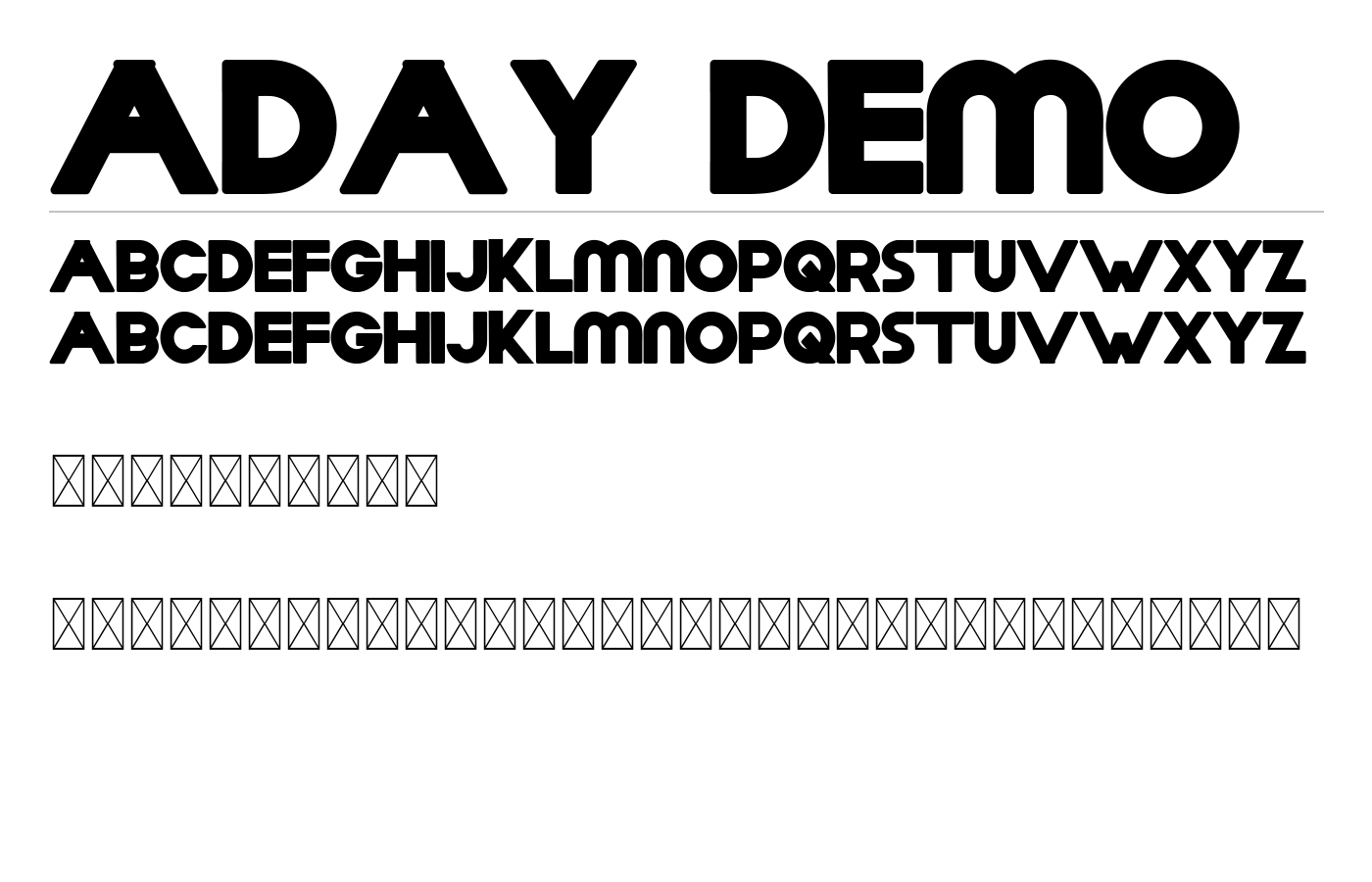
Aday Demo is a bold, geometric sans serif font with a strong, modern presence and wide, rounded letterforms that create a friendly yet powerful look. Its high weight, distinct shapes, and clean edges make it ideal for headlines, logos, and branding where clear impact and contemporary style are desired. This font works well in designs that seek to convey confidence and approachability, perfect for modern marketing and display purposes.
Aday Demo Font
About Aday Demo Font